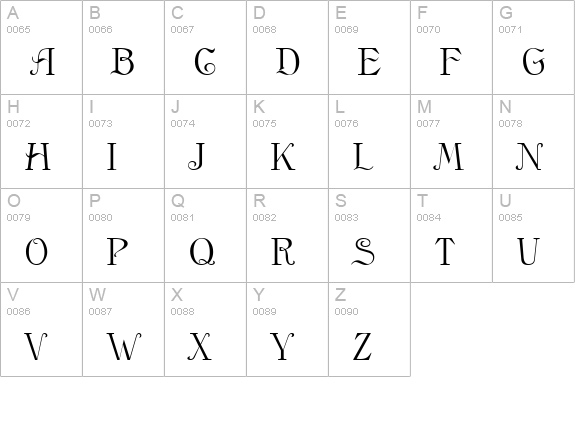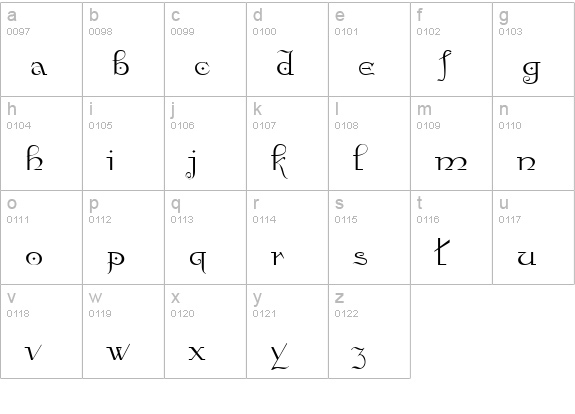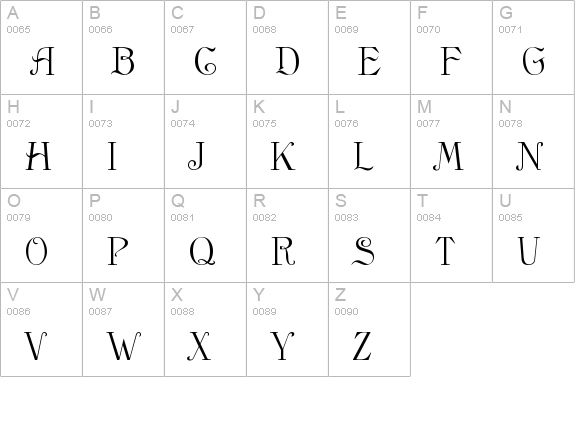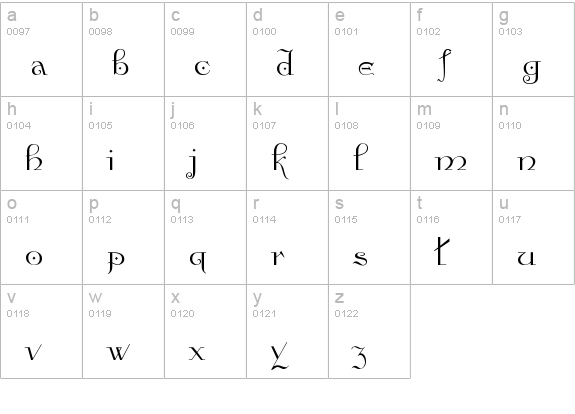
TR Anglican Font Details
TR Anglican font is a classic and elegant typeface that exudes a sense of tradition and sophistication. With its clean lines and timeless appeal, this font is perfect for a wide range of design projects, from invitations to branding to editorial layouts. Its versatility makes it a go-to choice for designers looking to add a touch of refinement to their work. The best part? TR Anglican font is available for free download at FontsMarket.com. That's right, you can elevate your designs with this beautiful font without having to spend a dime. So why wait? Download TR Anglican font today and bring a touch of timeless elegance to your projects.